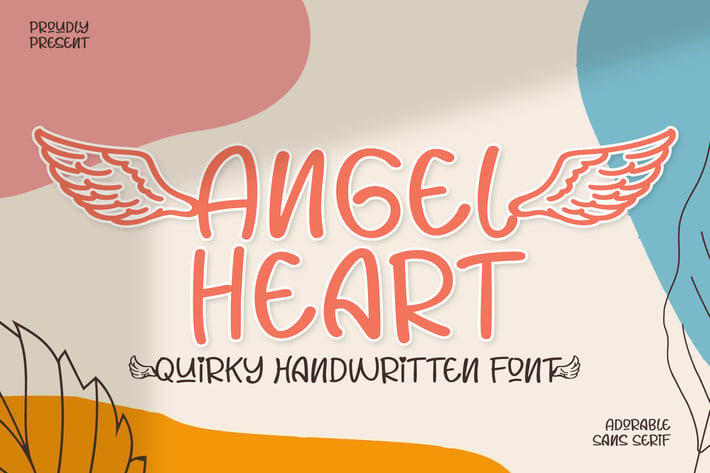
Angel Heart Display Font
Angel Heart is an all round lettered and unique display font. Not too thin and not too thick, balanced and varied, this font was designed to enhance the beauty of your projects.